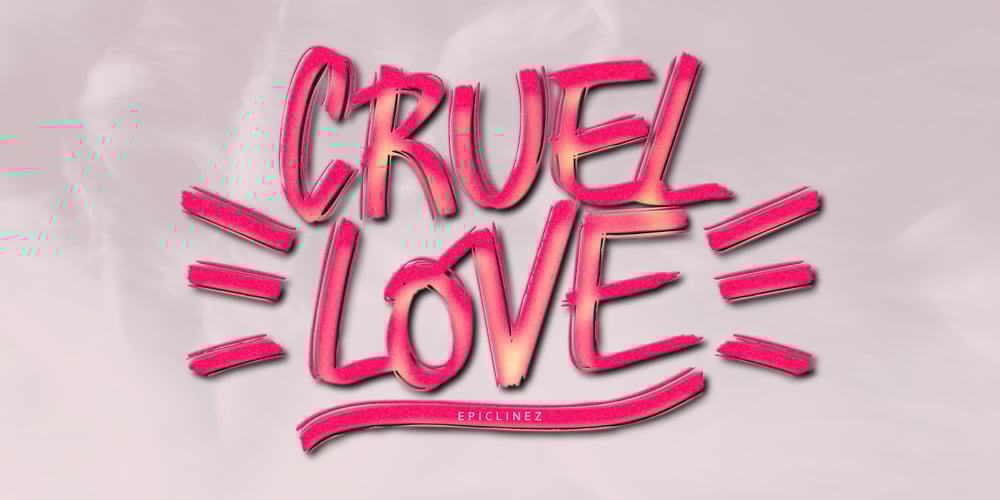
Cruel Love Font Family was designed by Aldy Sidik and published by Epiclinez. Cruel Love contains 1 styles and family package options. Introducing Cruel Love, an electrifying brush font pack that brings power and energy to your creative projects. With its edgy and cool aesthetic, this font is perfect for creating eye-catching posters, captivating movie titles, stylish apparel designs, bold logotypes, and memorable product branding.Cruel Love features : Standard Latin Numbers, symbols, and punctuations Multilingual Support. Fully accessible without additional design software Simple Installations Works on PC & Mac